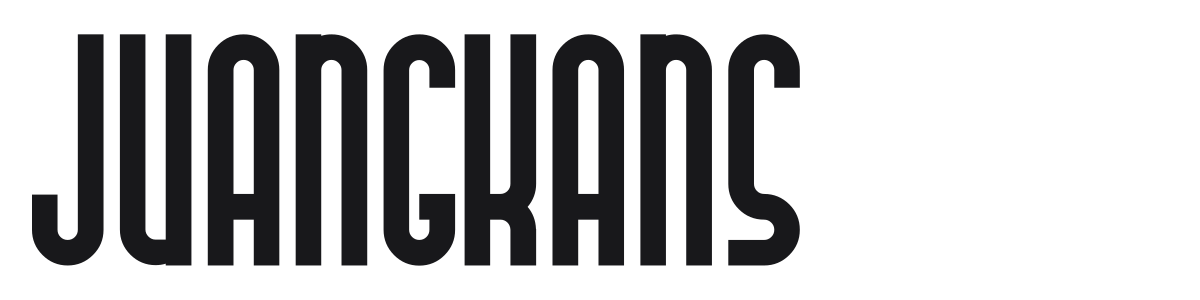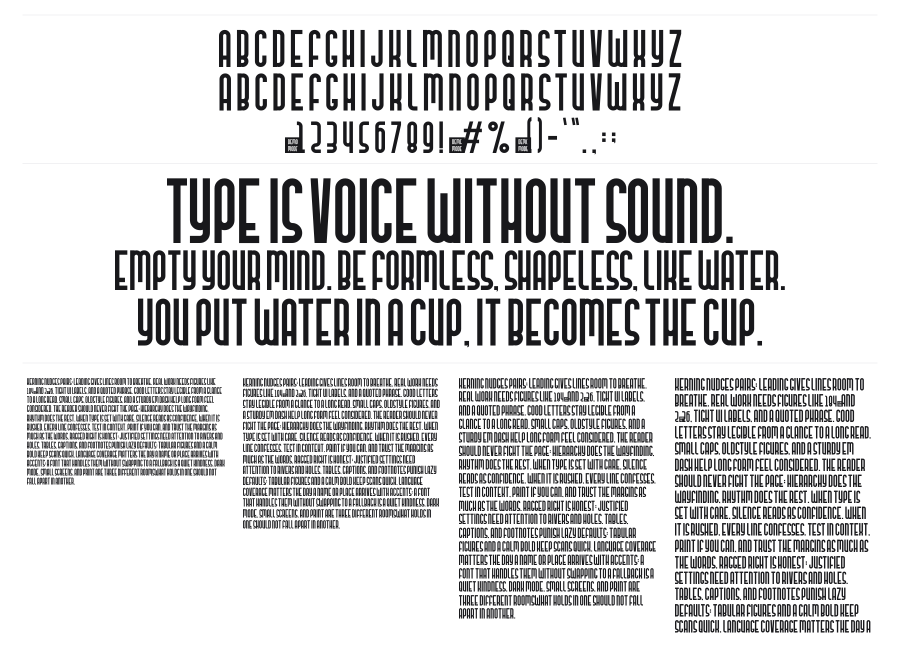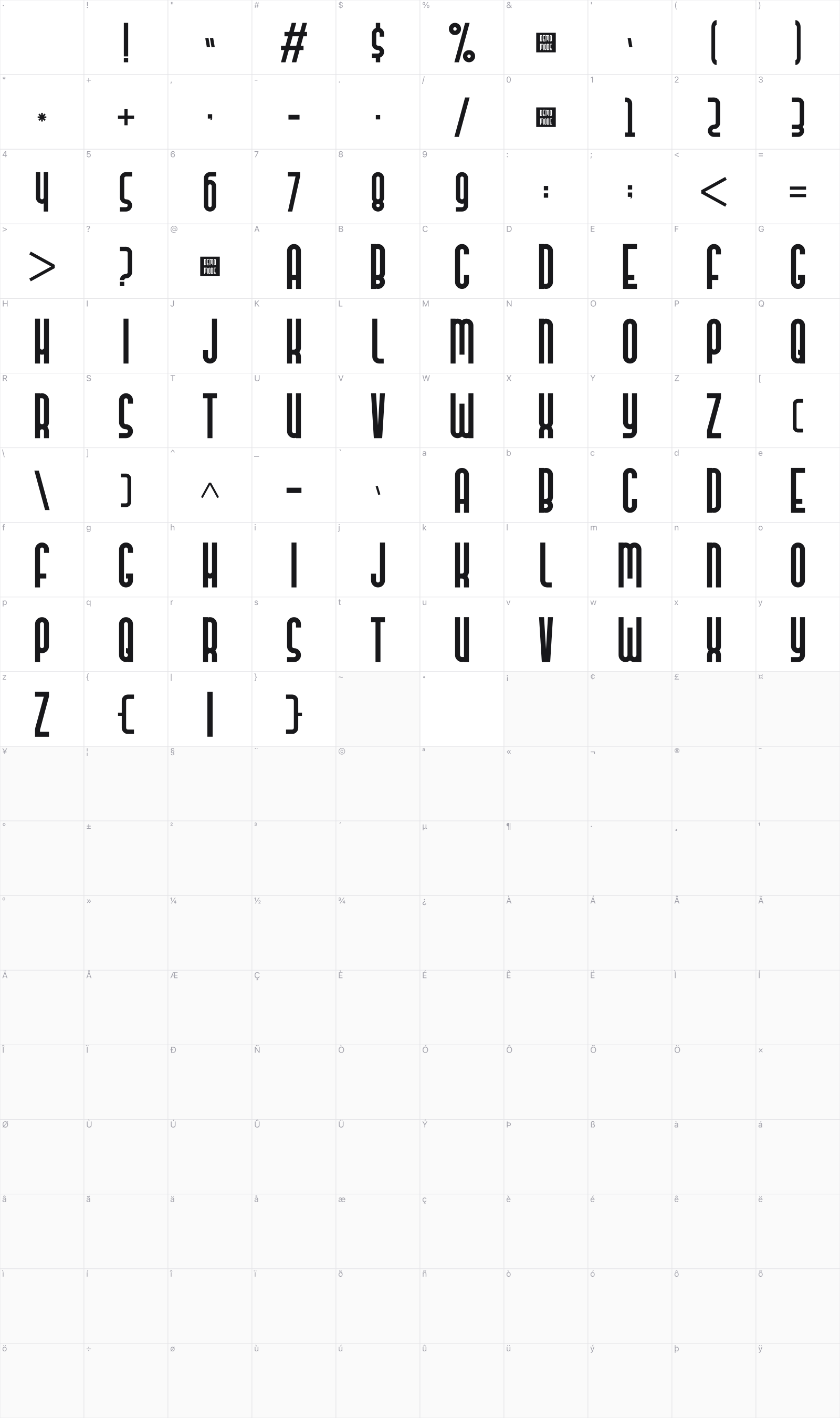
Juangkans
Juangkans is a boldly condensed display sans with tall, narrow proportions and a strong retro-industrial character. Its near-monoweight strokes and tightly compressed forms draw on Art Deco display traditions, giving it a vintage authority that works well at large sizes. The slightly tapered terminals add just enough detail to keep it from feeling flat.